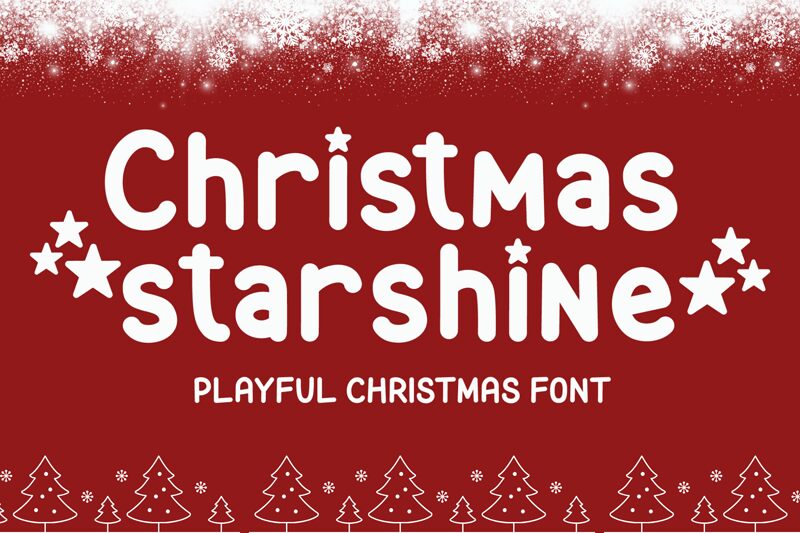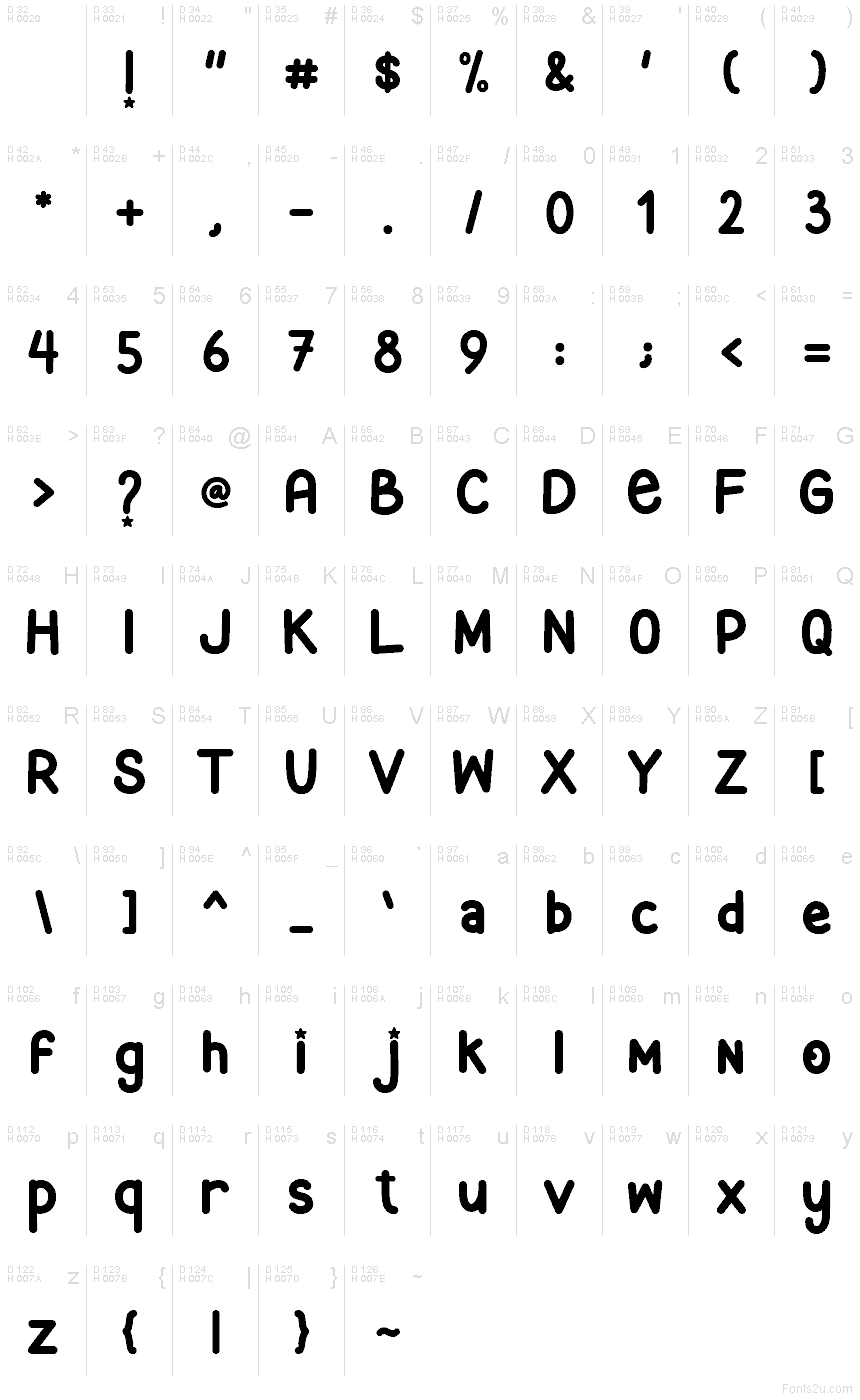
Christmas Starshine
Christmas Starshine font by AEN Creative Studio is a free holiday christmas typeface that looks like it was hand-lettered on a frosty shop window. Chunky, rounded letters wobble just enough to feel playful, with inky black strokes that read clearly even at smaller sizes. There’s a cozy, storybook warmth here—like cookie labels, handwritten gift tags, and old-school greeting cards rolled into one cheerful style.
Using Christmas Starshine, your holiday projects instantly feel fun, friendly, and family-ready. This free font shines on Christmas cards, kids’ book covers, advent calendars, party invitations, classroom printables, and festive social posts. Set it large for headlines and pair it with a simple sans serif for supporting text to keep all that joyful personality easy to read.